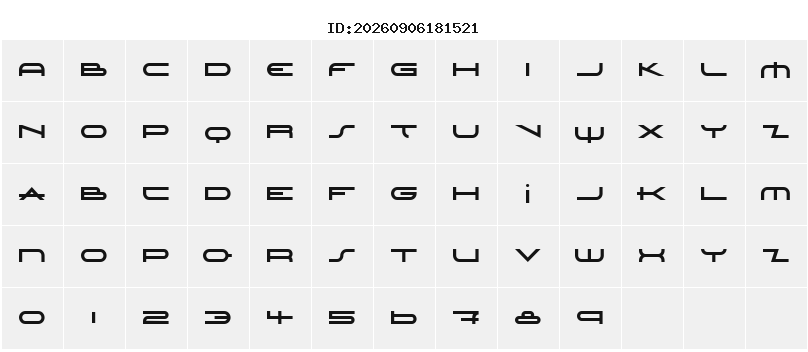
• Font Name: TLC Fan-Mail
• Font Style: Fan Mail
• Full Font Name: TLC Fan Mail
• PostScript Name: TLC Fan Mail
About TLC Fan-Mail.ttf
TLC Fan-Mail.ttf is a modern, elegant sans-serif font designed for ultimate readability and visual harmony. Perfect for branding, headlines, web design, and print materials.